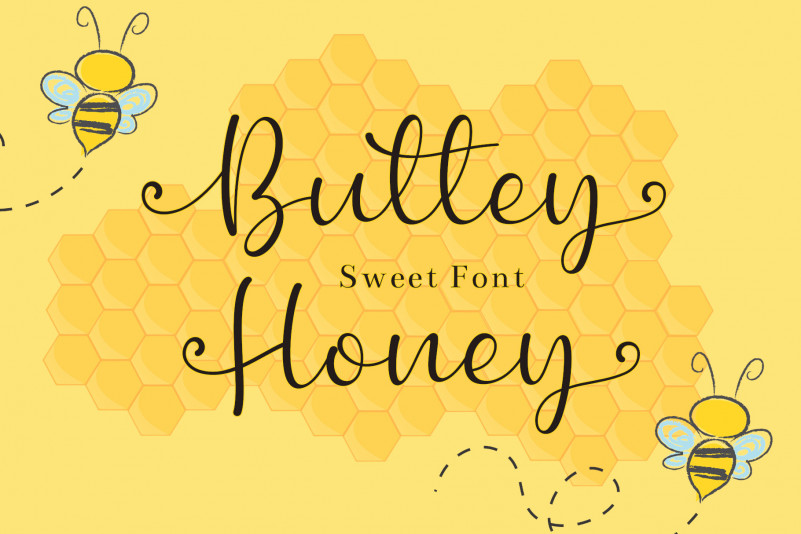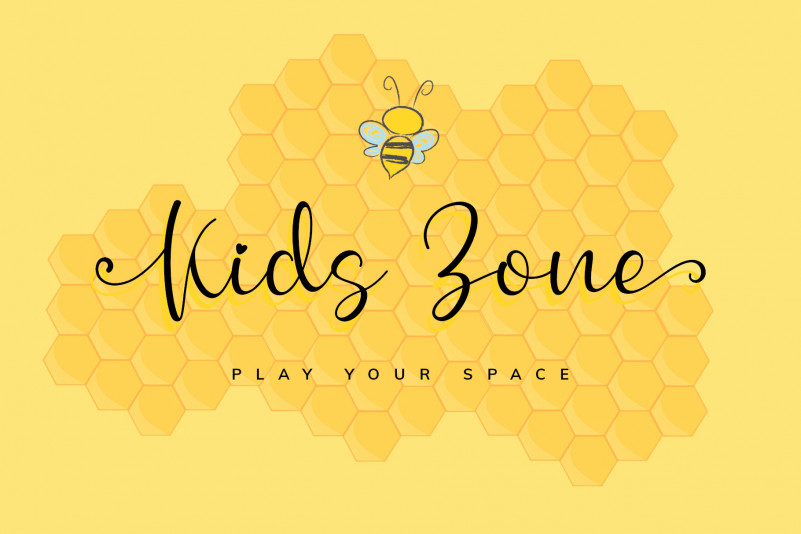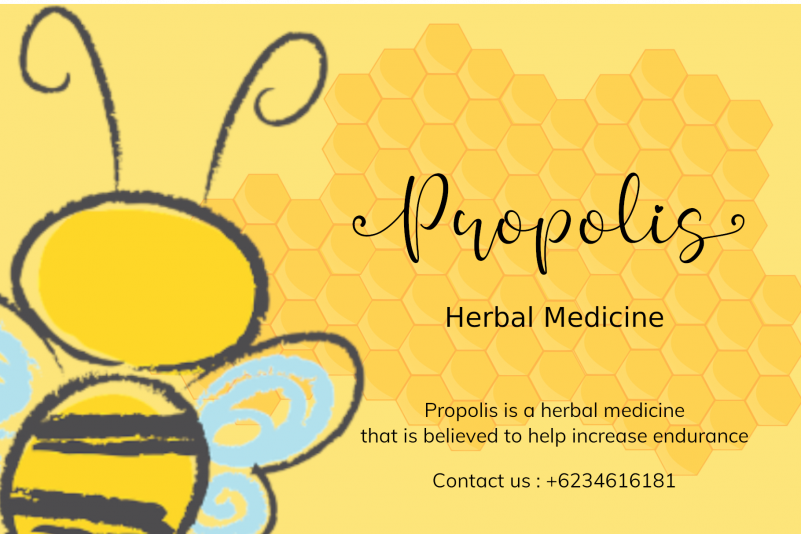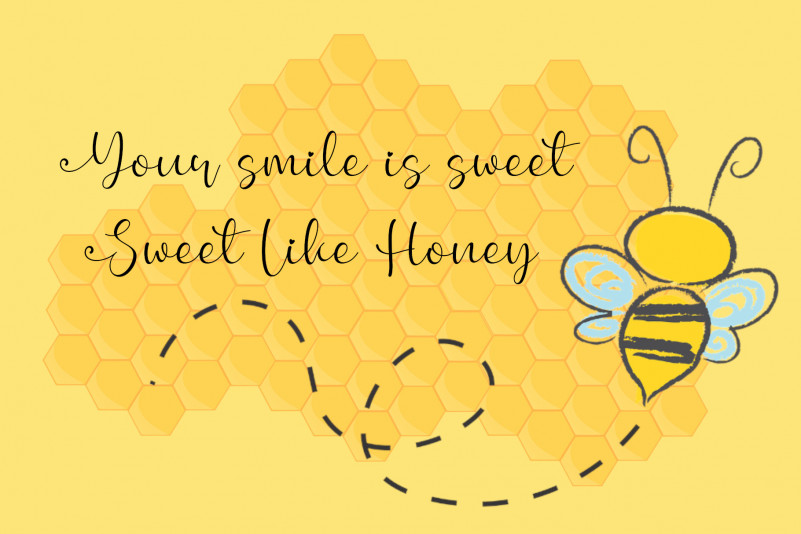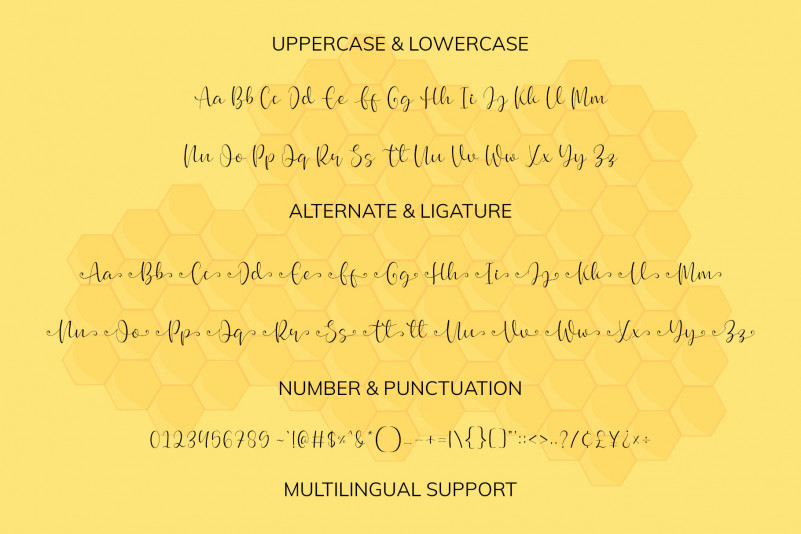
Buttey Honey Script Font
Buttey Honey Script Font is a cursive font that has a tail at the beginning and at the end of the letter that is suitable for use for posters, branding and crafting needs.
Buttey Honey Script Font is very easy to access because we have given PUA Encoded and divide special characters into opentype features such as ligature and alternate so you can access them with programs that have opentype support.